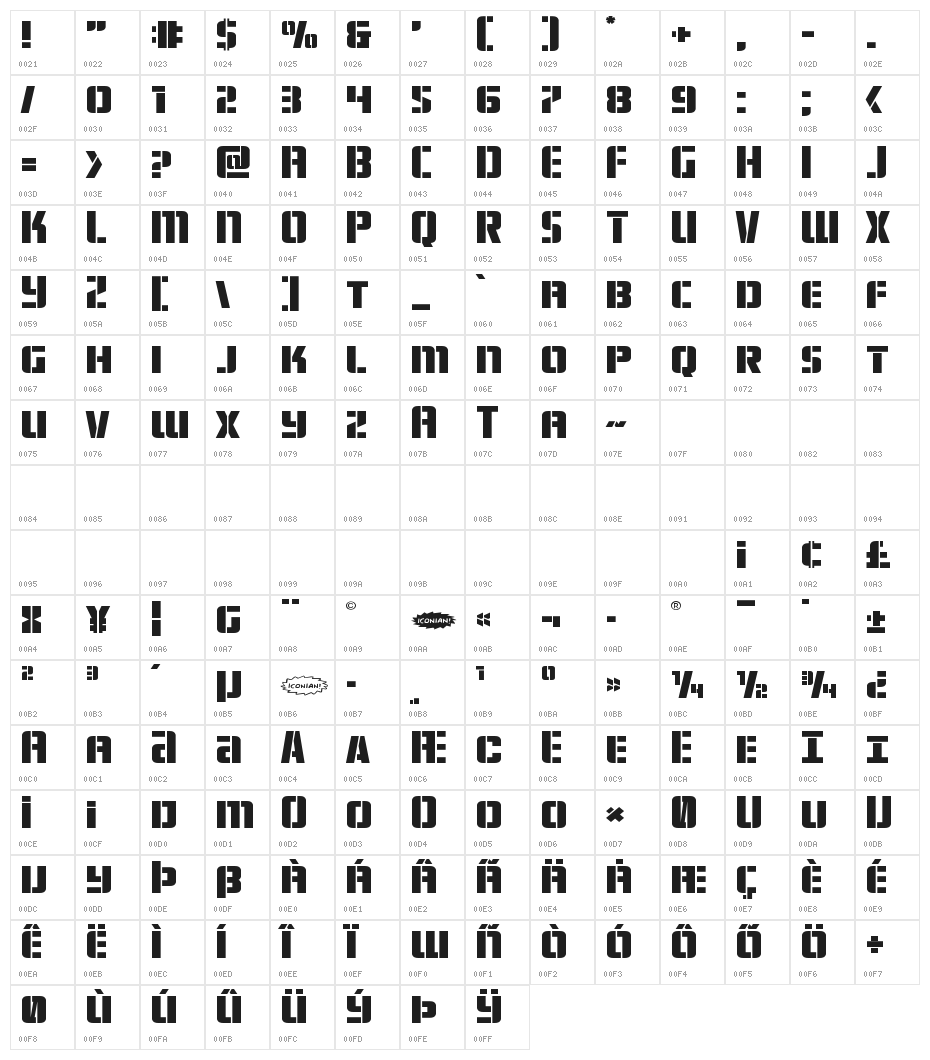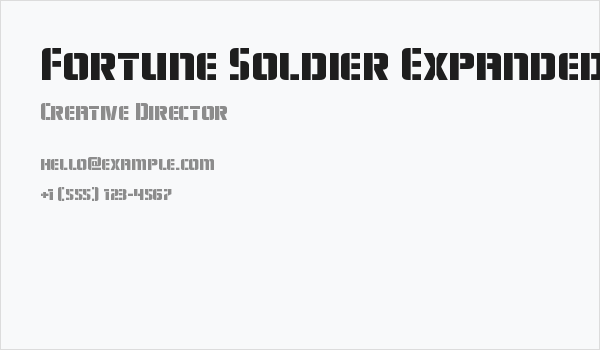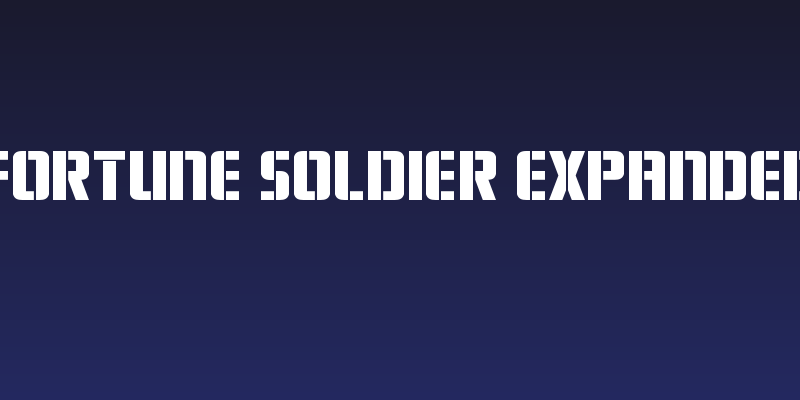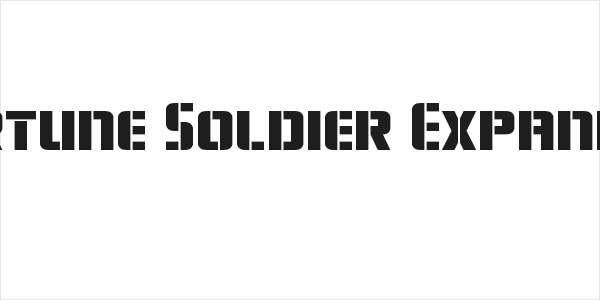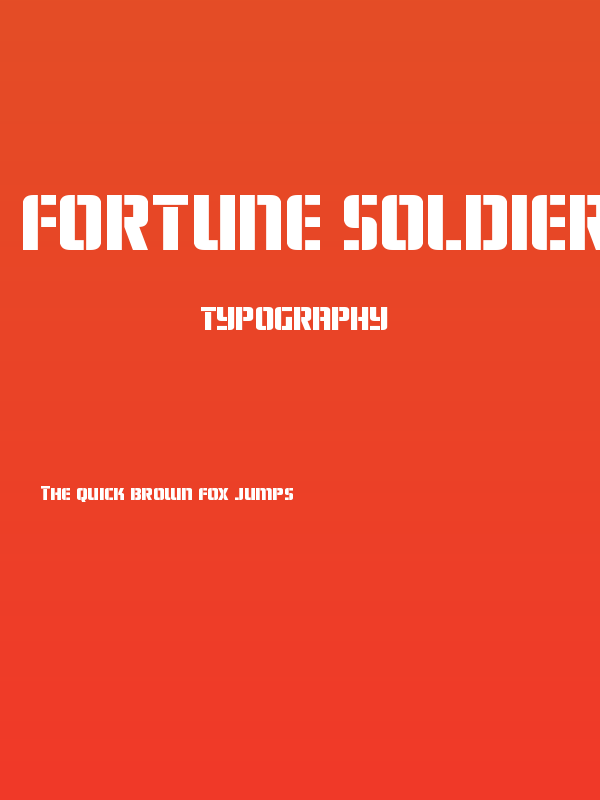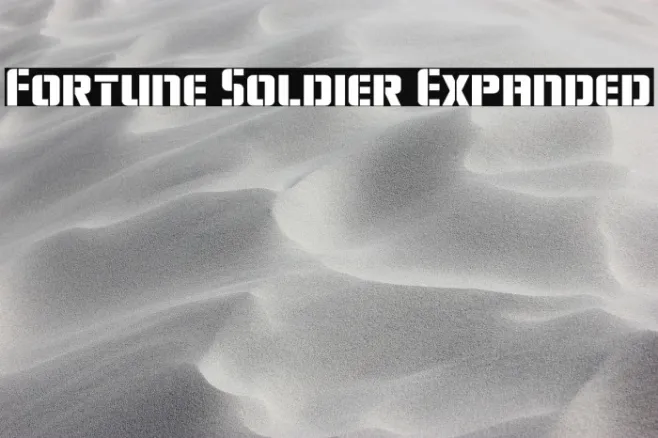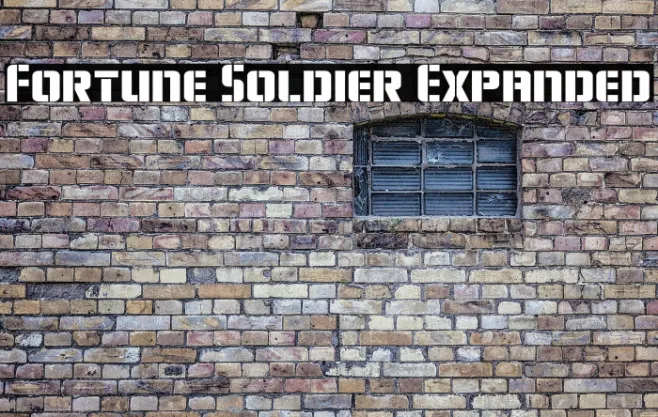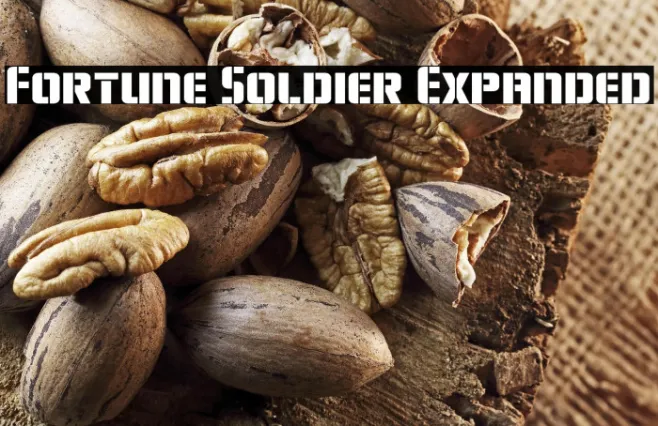
Fortune Soldier Expanded Font
Fortune Soldier Expanded Description
This font features a bold, stencil-like design with strong geometric shapes and sharp angles. Each character is constructed with solid, blocky forms that give it a military or industrial feel. The uppercase letters are particularly striking, with consistent height and width, creating a uniform appearance. The lowercase letters maintain the same boldness, ensuring readability while retaining the font's distinctive style. Numbers and special characters follow the same design principles, making them easily recognizable and cohesive with the overall aesthetic. The font's expanded width adds to its commanding presence, making it ideal for impactful headlines or titles.
FORTUNE-SOLDIER-EXPANDED UPPERCASE
FORTUNE-SOLDIER-EXPANDED LOWERCASE
FORTUNE-SOLDIER-EXPANDED OTHER CHARS
| Overall Style | Industrial, Military |
| Proposed Projects | Ideal for military-themed designs, posters, logos, and branding that require a strong, authoritative look. |